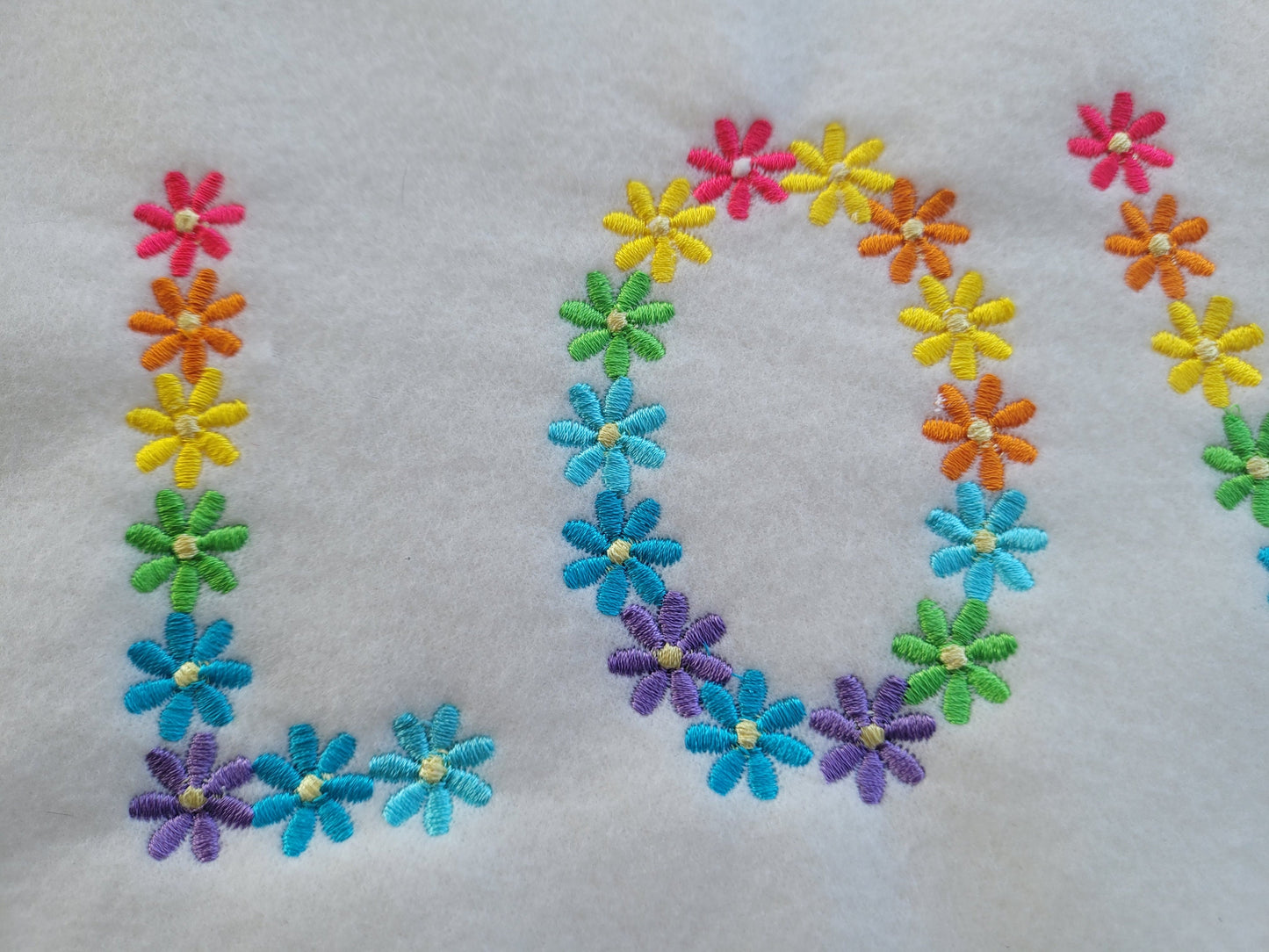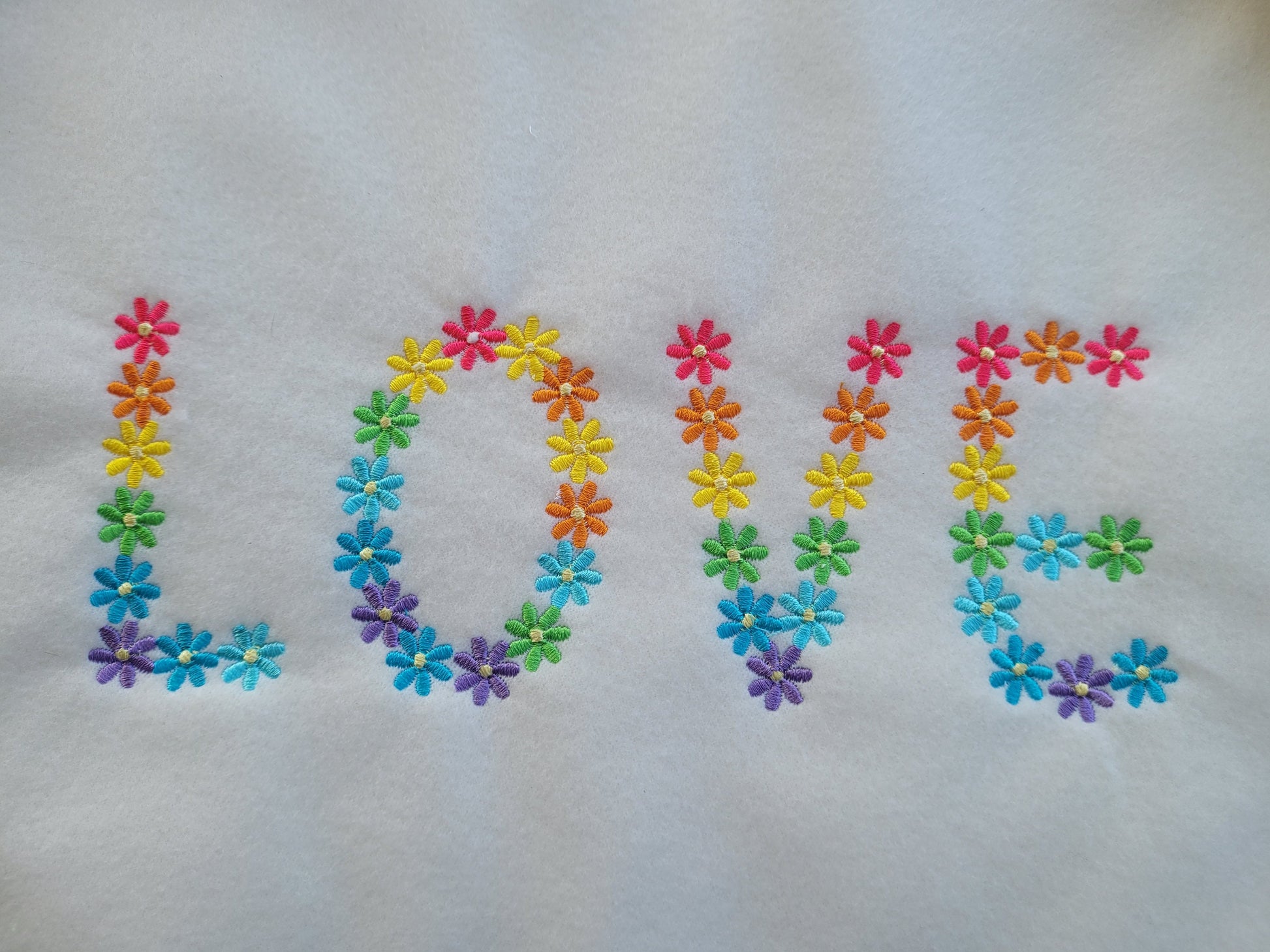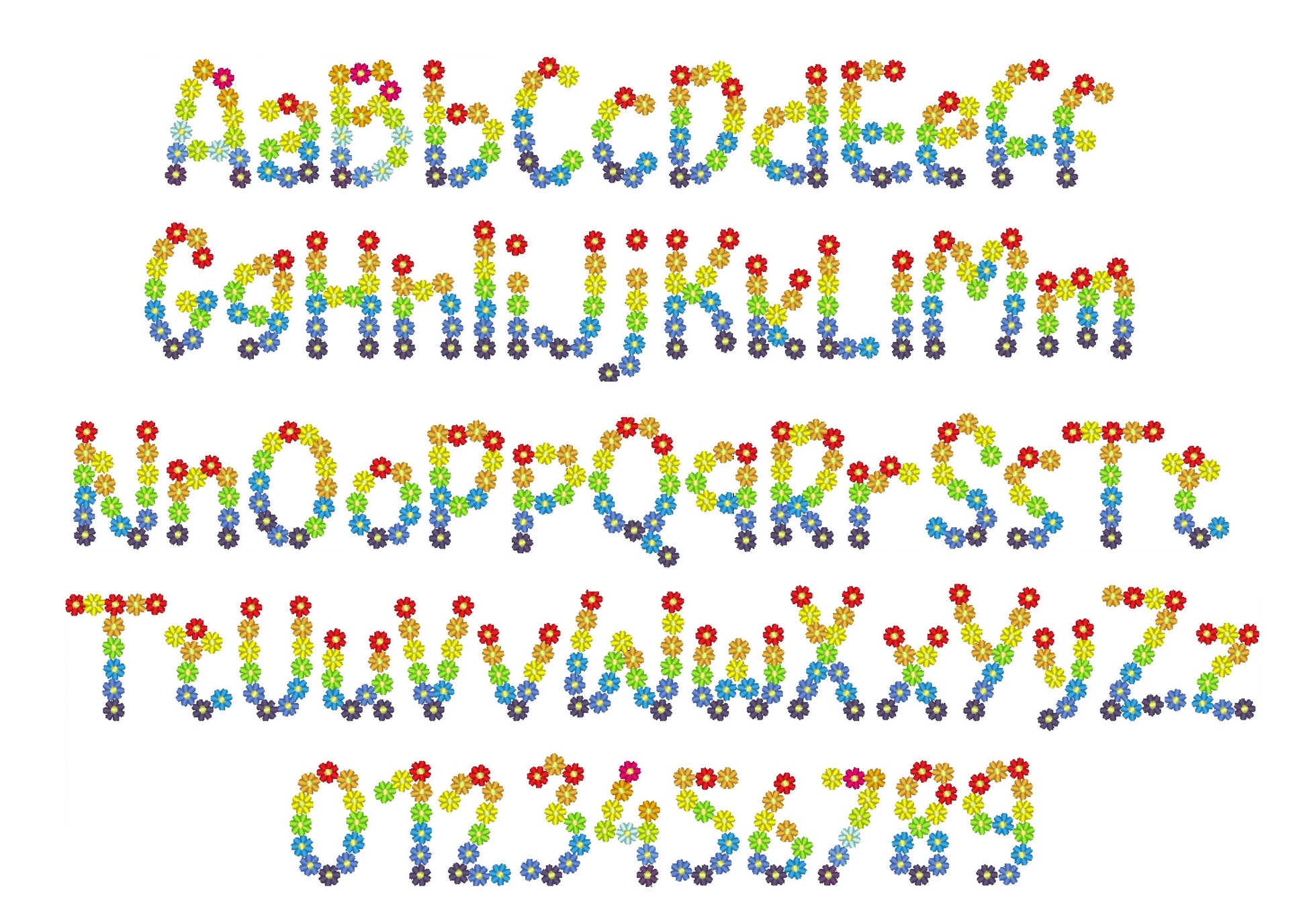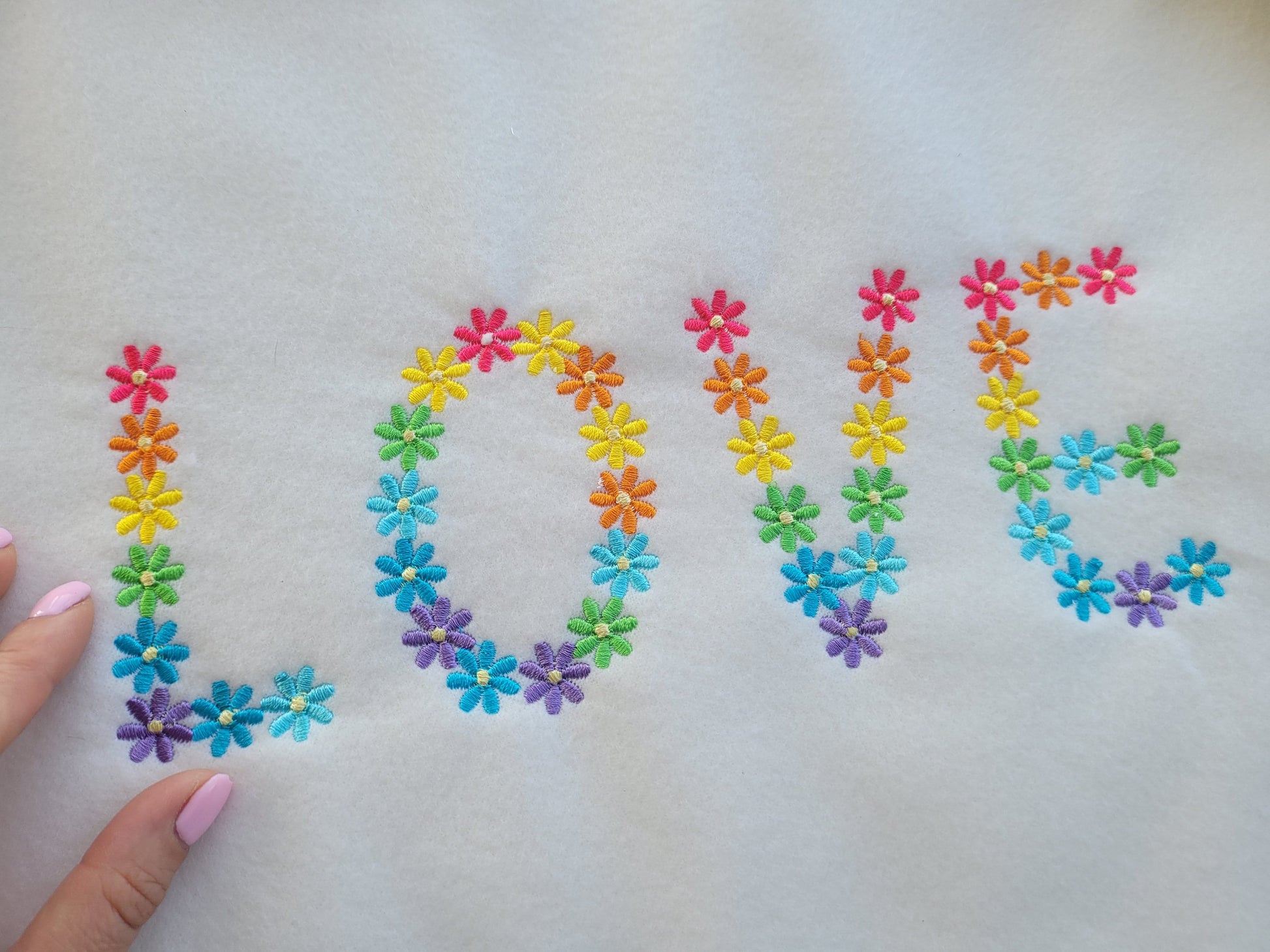
Or click to open the linkA country floral font with rainbow daisies. Pretty for garden flags, pillows, tote bags and spring monograms.
Uppercase and lowercase letters and numbers 0 to 9. Six sizes: 1.8, 2.2, 2.5, 3, 3.5 and 4 inches.